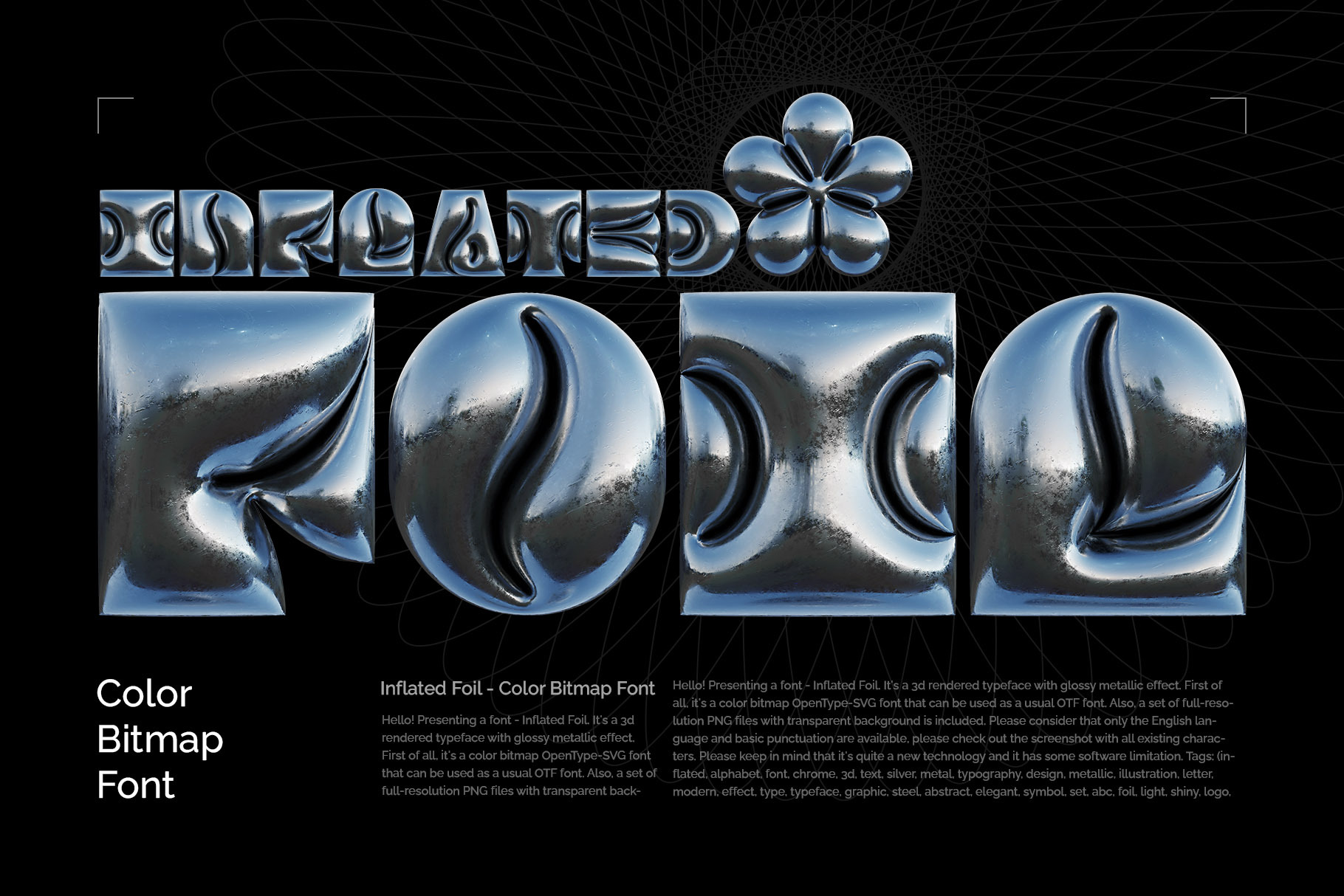
Inflated Foil - Color Bitmap Font
Hello! Presenting a color bitmap font - Inflated Foil. It's a 3d rendered typeface with glossy metallic effect. First of all, it's a color bitmap OpenType-SVG font that can be used as a usual OTF font. Also, a set of full-resolution PNG files with transparent background is included. Please consider that only the English language and basic punctuation are available, please check out the screenshot with all existing characters.